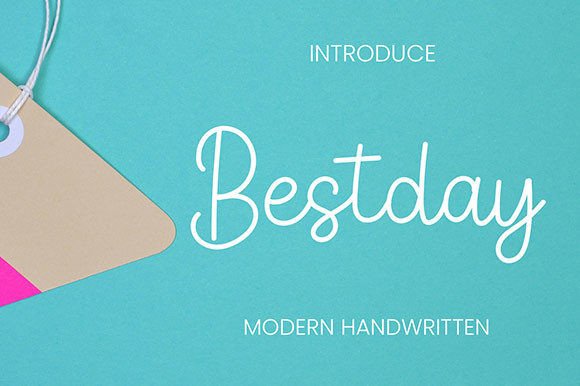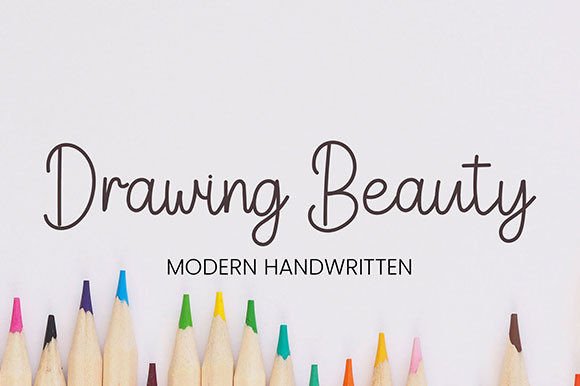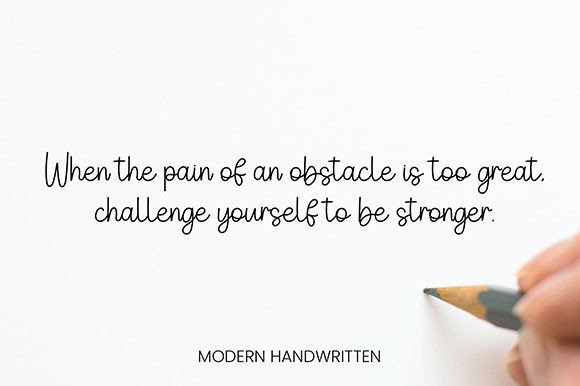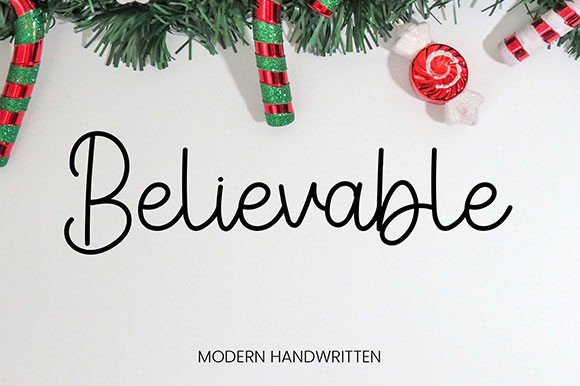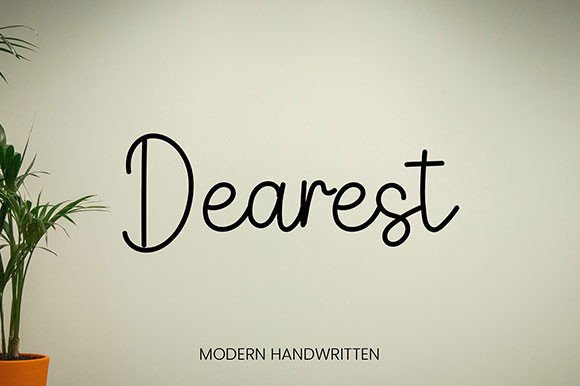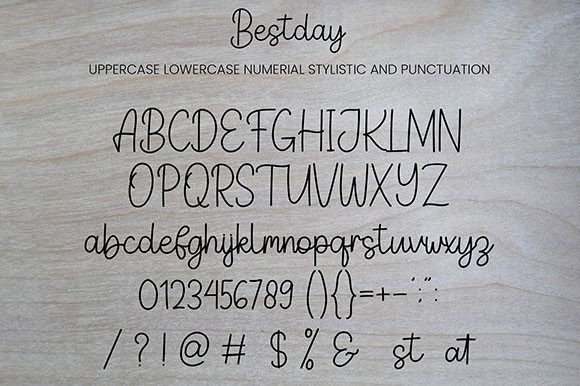
Bestday Font
About Bestday Font
Bestday is a lovely handwritten font, suitable for various projects such as quotes, logos, blog headers, posters, ribbons, fashion, clothing, letters, invitations, stationery, etc.